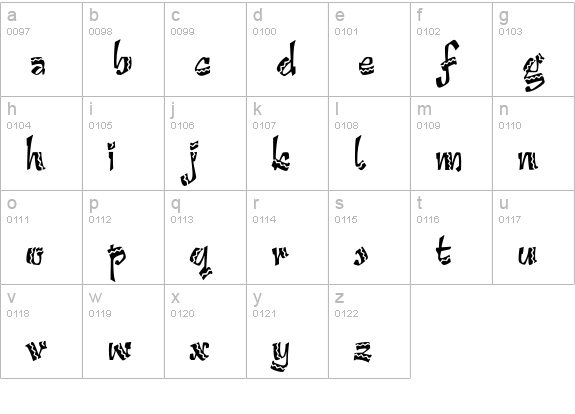
Arriba Arriba Std Font Details
Arriba Arriba Std is a vibrant and playful font that exudes energy and excitement. Its bold and dynamic letterforms make a strong impression, perfect for headlines, posters, and branding projects. With a touch of whimsy and a dash of flair, this font captures the essence of fun and creativity. What's even better is that Arriba Arriba Std is available for free download at FontsMarket.com. So go ahead and add this lively typeface to your collection and let your designs stand out with its unique charm and character. Let your creativity soar with Arriba Arriba Std!